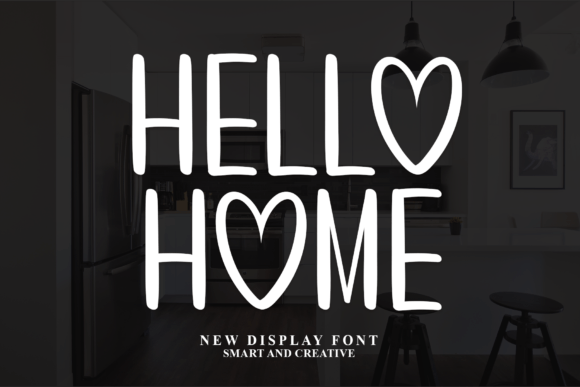
Introducing the Hello Home Font - The Best Font For Logo Design! Created by Inermedia STUDIO, this festive and merry typeface is the perfect choice for spreading holiday cheer and captivating your audience. With its enchanting decorative elements and whimsical flair, Hello Home adds a touch of magic to your designs, making them truly stand out.
Are you looking to create memorable greeting cards, gift tags, or holiday-themed projects? Look no further - Hello Home Font is here to bring a cheerful and nostalgic ambiance to your words. Embrace the spirit of the holiday season and let your typography shine with the magic of Christmas!
One of the standout features of Hello Home Font is its PUA encoding. This means that accessing all the amazing glyphs and ligatures is a breeze! Unleash your creativity and explore the variety of options this font offers, allowing you to craft unique and captivating designs effortlessly.
With Hello Home Font, you can effortlessly infuse your projects with the joy and warmth of the holiday season. Its captivating and eye-catching qualities make it the ideal choice for anyone looking to create stunning logos, advertisements, or social media graphics. Stand out from the crowd and leave a lasting impression on your audience with this remarkable font.
Whether you're a professional designer or a creative enthusiast, Hello Home Font is designed to meet your needs. Its versatility allows it to adapt to any project, making it the perfect companion for your design journey. Let your imagination run wild and watch as your ideas come to life with the help of this remarkable font.
Hello Home Font is more than just a typeface. It's an invitation to embrace the festive spirit, spread joy, and create memorable designs. Whether you're designing for personal use or for clients, this font will elevate your creations to a whole new level.